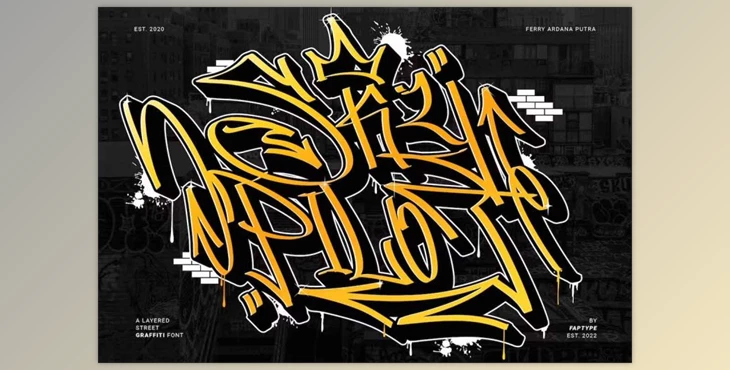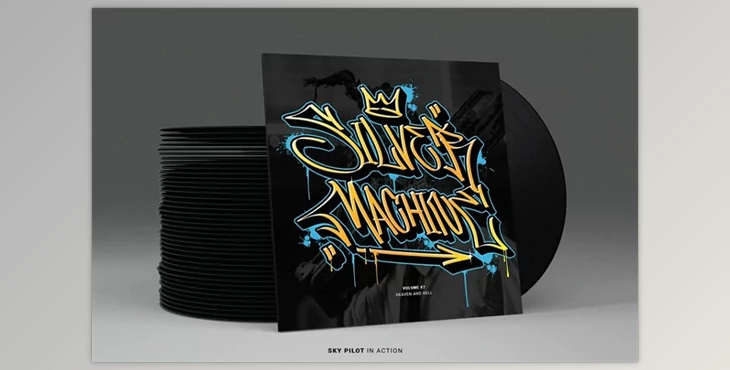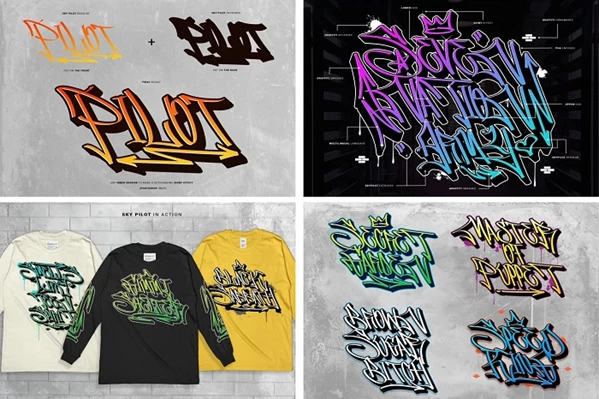
Skypilot Graffiti Font is a meticulously crafted graffiti font designed to emulate the dynamic energy of street art. With a hand-selected assortment of letters and an extruded version for layering, it offers a versatile tool for creating authentic urban designs.
The addition of swashes and ornaments adds playful excitement, perfect for a variety of applications such as t-shirts, posters, and digital media. Encoded with PUA for easy access to all glyphs, Skypilot promises a seamless design experience, unleashing urban creativity in any project.